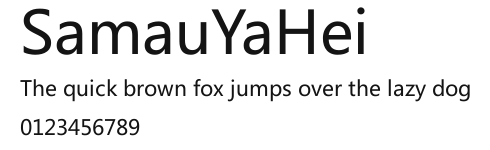
SamauYaHei Preview
• Font Name: SamauYaHei
• Full Font Name: SamauYaHei
• Designer: Founder
• Manufacturer: Microsoft Corporation
• Description: Microsoft YaHei is a Simplified Chinese font developed by taking advantage of ClearType technology, and it provides excellent reading experience particularly onscreen. The font is very legible at small sizes.
About SamauYaHei.ttf
SamauYaHei.ttf is a modern, elegant sans-serif font designed for ultimate readability and visual harmony. Perfect for branding, headlines, web design, and print materials.